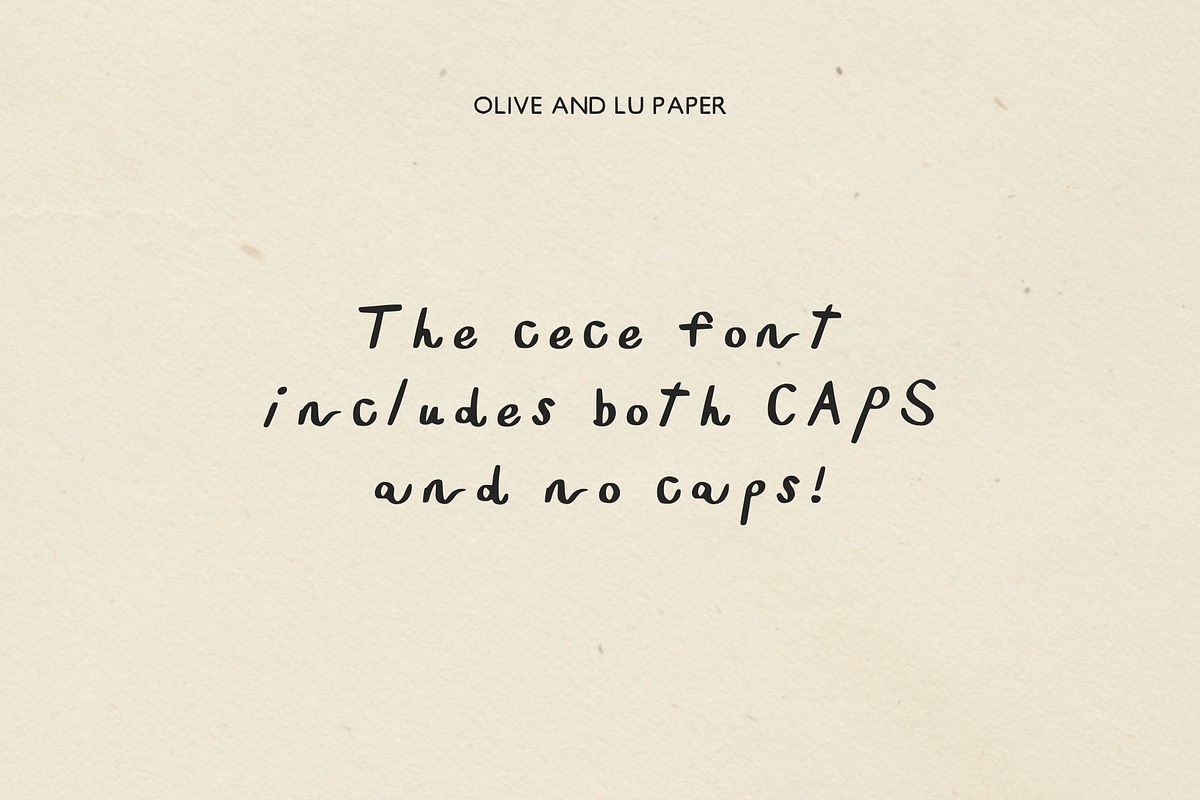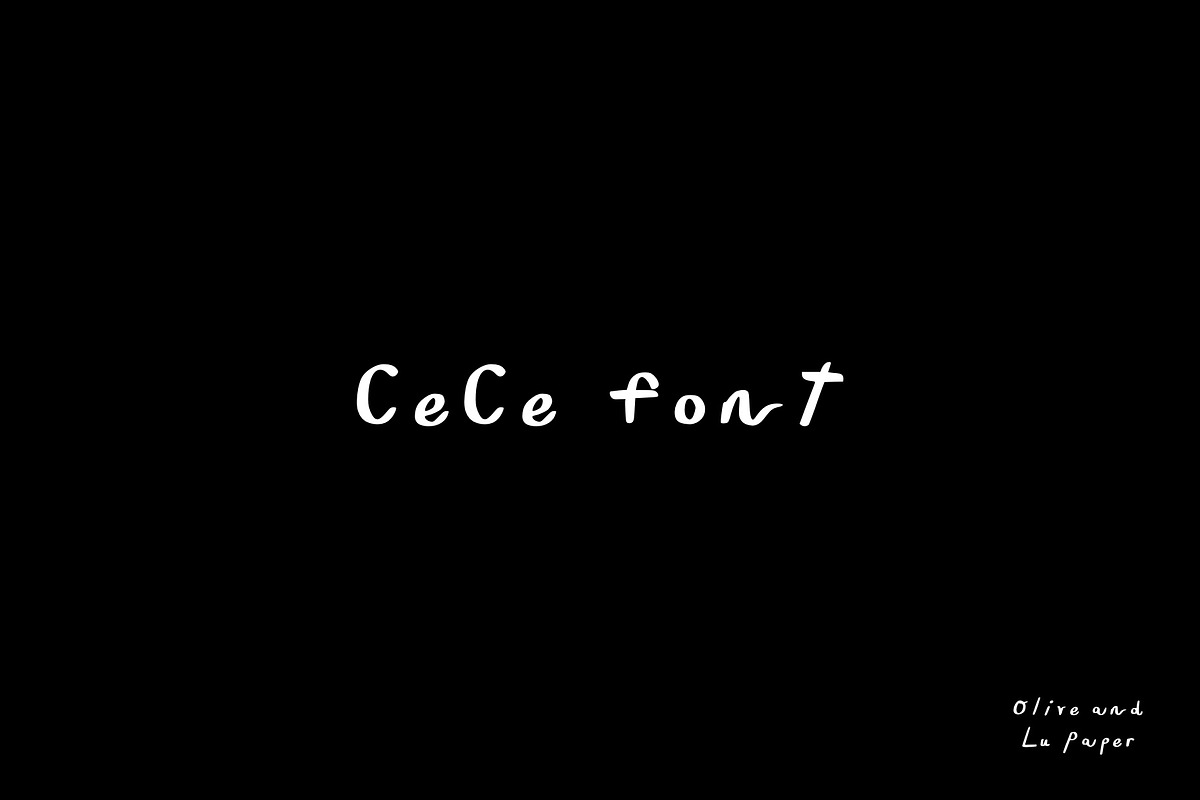
Handwritten CeCe Font
This is a custom handwritten font, perfect for graphics, tee shirts, websites, or personal projects.
This font has caps and no caps and includes a couple special characters.